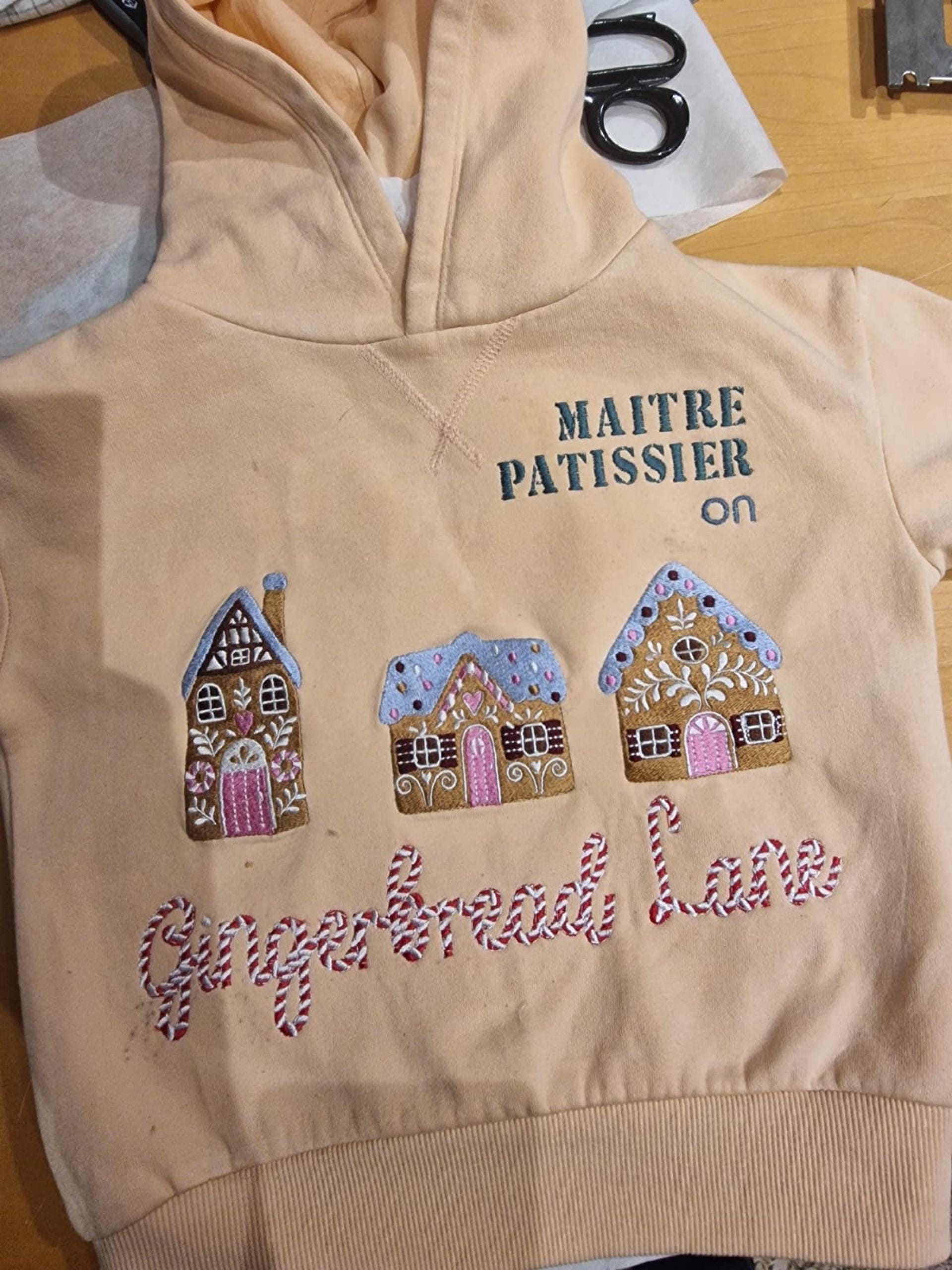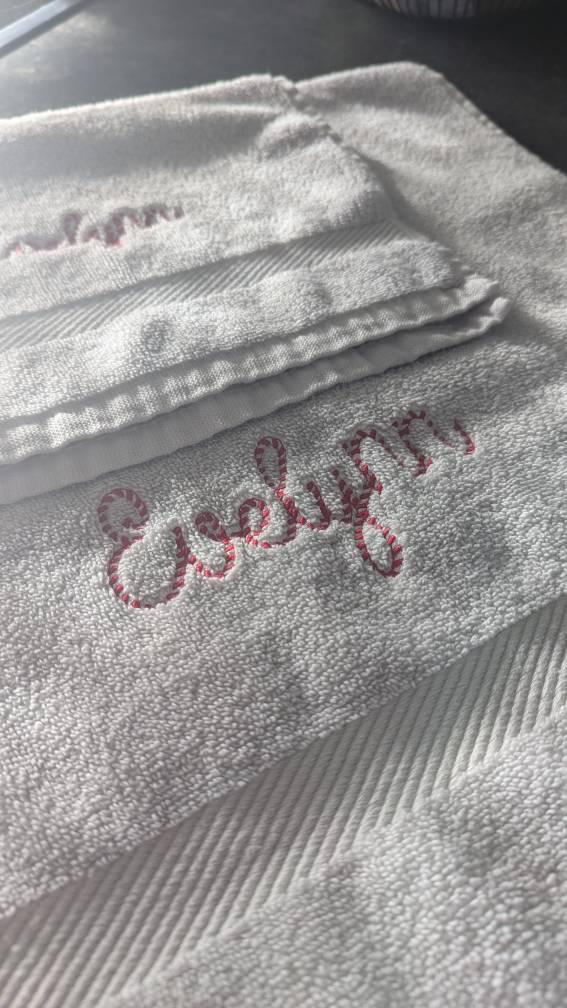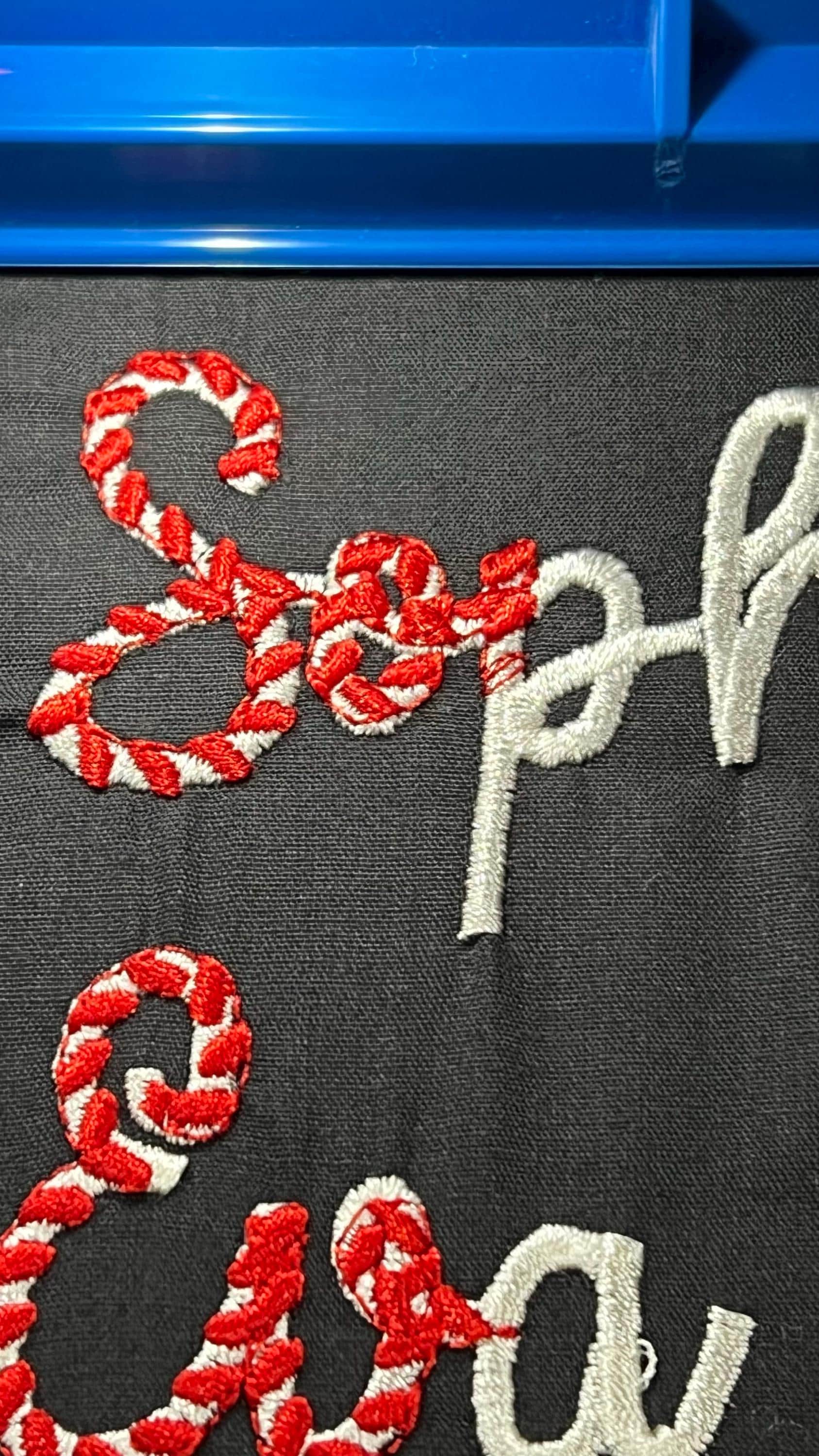
Candy Cane Stitch Striped Font
Make stockings and monograms delightfully festive this Christmas.
About This Design
Candy Cane Stitch Striped Font is an in-the-hoop embroidery font that stitches candy-cane stripes across uppercase, lowercase, numbers and punctuation. This candy cane embroidery alphabet is available in six design sizes (1.3", 1.7", 2", 2.4", 3", 3.6") and comes in common machine formats PES, DST, EXP, VIP, HUS, XXX, JEF and VP3. The two-color candy cane font uses 5423 stitches for a crisp striped effect and fits a 4x4 compatible hoop. Perfect as a Christmas font for stocking monograms, gift tags, kids' holiday projects and colorful seasonal personalization. Instant download with included instructions.
This is an in-the-hoop font: stitch individual letter files in your chosen size, use the two color stops to create the candy-cane stripe effect, and place letters close together to simulate handwriting.